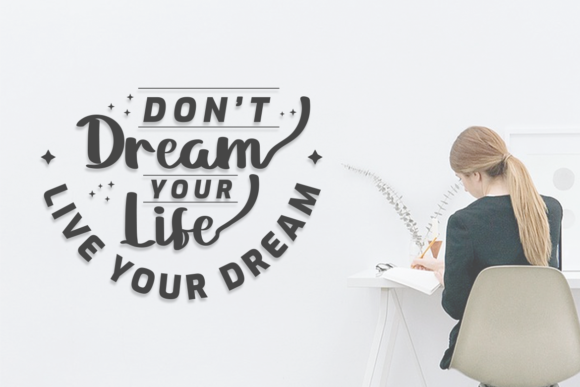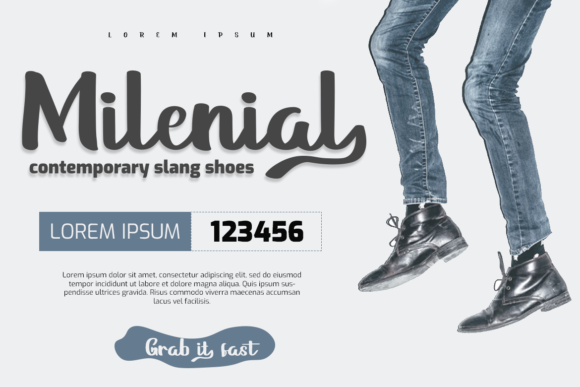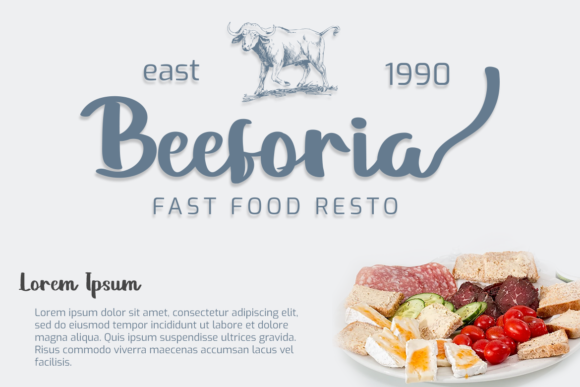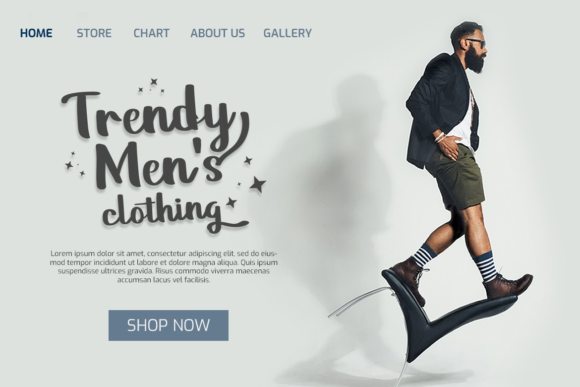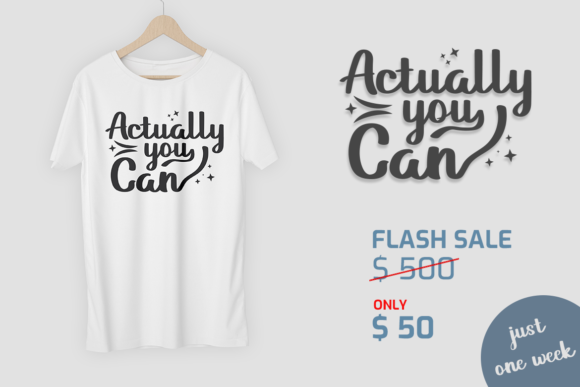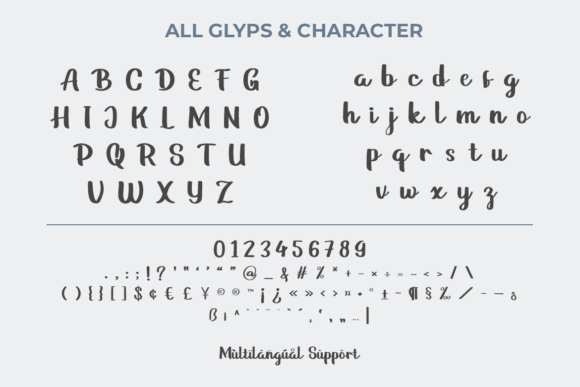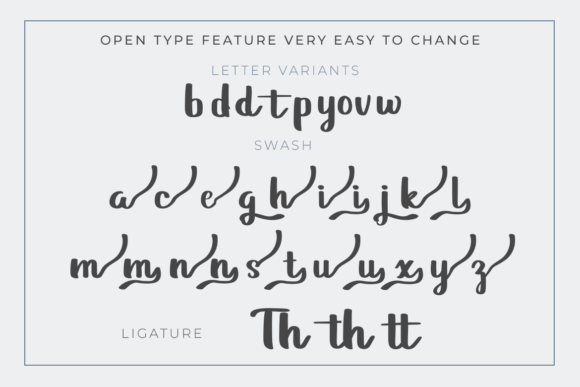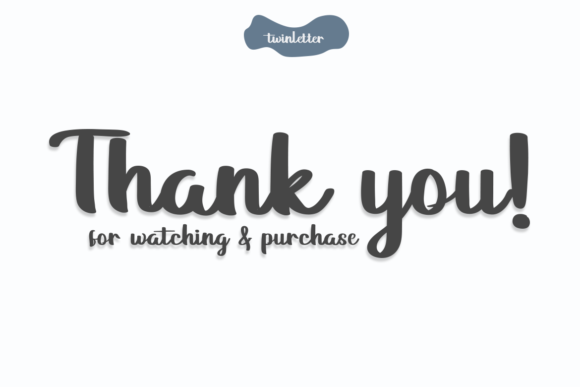
Gathers Font
About Gathers Font
Gathers is a modern script font. This enchanting font will turn any creative idea into a true standout. Get creative with its unique look, and use it to brighten up any crafting project!